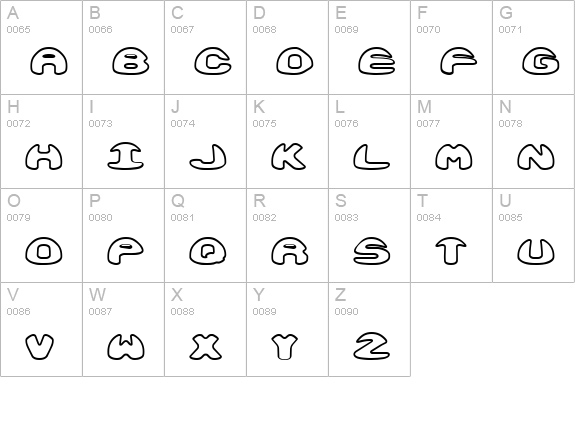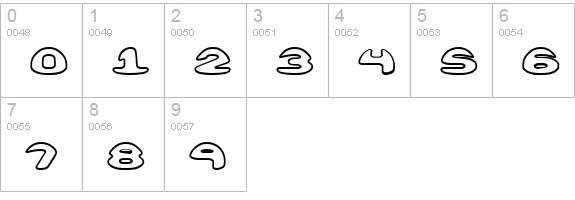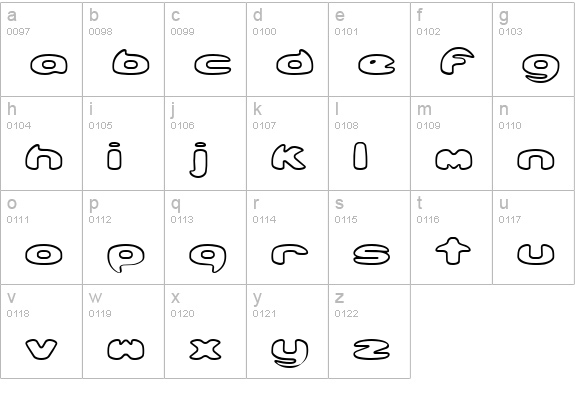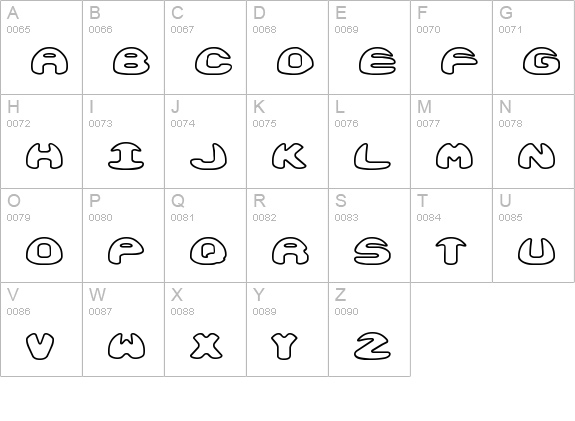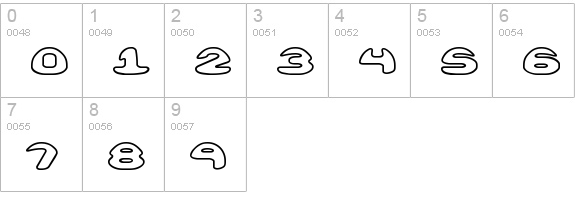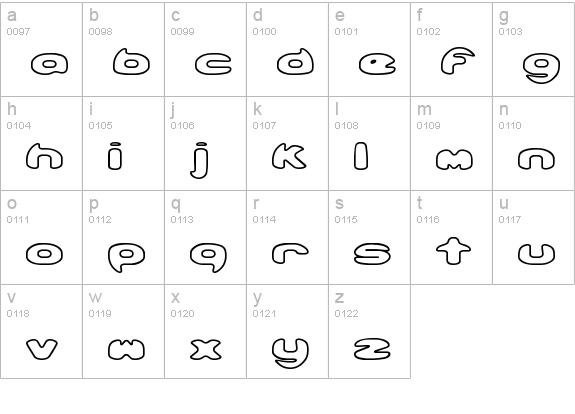
Obloquy Outline BRK Font Details
Obloquy Outline BRK font is a stunning display typeface that exudes elegance and sophistication. With its intricate outline design, this font is perfect for adding a touch of modernity to any project. Whether you're designing a logo, poster, or website, Obloquy Outline BRK will make your text stand out with its unique style. The best part is that Obloquy Outline BRK font is completely free to download at FontsMarket.com. Simply visit the website and start using this beautiful font in your designs today. Don't miss out on the opportunity to enhance your creative projects with this eye-catching typeface!